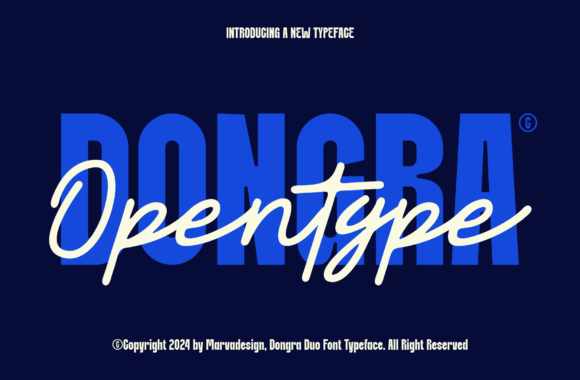
Introducing Dongra Font: A Versatile and Unique Typeface
In the world of typography, a new font has emerged that is set to make a significant impact on the design industry. Meet Dongra, a versatile and unique typeface that comes in two distinct styles: Condensed and Script. Each style brings its own flavor and character, catering to various design needs and preferences. In this article, we will explore the features and benefits of Dongra, and why it is an excellent addition to any designer’s font library.
Dongra Font Styles: Condensed and Script
Dongra offers two font styles that are designed to cater to different design needs. The Condensed style is perfect for projects that require a modern and sleek look, while the Script style is ideal for designs that need a personal and handwritten touch.
Dongra Condensed
The Dongra Condensed font style is a modern and sleek typeface that is designed for high legibility. Its condensed nature makes it perfect for use in display and body text, and its minimalistic design ensures that it can be used in a variety of applications.
- Style: Modern
- Characteristics: Sleek and Clean
- High Legibility: Despite its condensed nature, the font maintains high legibility, making it suitable for both display and body text.
- Minimalistic: The modern style of Dongra Condensed embodies minimalism, with simple lines and a lack of unnecessary embellishments.
- Versatility: This style is ideal for a variety of applications, including headlines, posters, branding, and editorial design, where a contemporary look is desired.
Dongra Script
The Dongra Script font style is a handwritten typeface that offers a dynamic and expressive feel. Its handcrafted nature makes it perfect for creative projects that require a personal touch.
- Style: Handwritten Line
- Characteristics: Handcrafted Feel
- Dynamic and Expressive: The script style offers a dynamic and expressive feel, making it perfect for creative projects that require a personal touch.
- Varied Line Thickness: The varying thickness of the lines in Dongra Script adds to its authenticity, emulating the natural pressure and movement of handwriting.
- Elegance and Flow: The font flows gracefully from one letter to the next, adding an element of elegance and smoothness to any text it is used in.
- Use Cases: Ideal for invitations, greeting cards, logos, and any design work where a personal, handwritten style is desired.
Design Applications for Dongra Font
Dongra’s versatility makes it an excellent choice for a wide range of design applications. Here are some examples of how Dongra can be used:
- Headlines and Posters: Dongra Condensed is perfect for headlines and posters, where a modern and sleek look is desired.
- Branding and Editorial Design: Dongra Condensed is ideal for branding and editorial design, where a contemporary look is desired.
- Invitations and Greeting Cards: Dongra Script is perfect for invitations and greeting cards, where a personal and handwritten touch is desired.
- Logos and Creative Projects: Dongra Script is ideal for logos and creative projects, where a dynamic and expressive feel is desired.
The Benefits of Dongra Typography
Dongra offers several benefits to designers and typographers. Here are some of the advantages of using Dongra:
- Unique and Versatile: Dongra offers a unique and versatile typeface that can be used in a wide range of design applications.
- High Legibility: Dongra Condensed maintains high legibility, making it suitable for both display and body text.
- Handcrafted Feel: Dongra Script offers a handcrafted feel that adds a personal touch to any design.
- Elegance and Flow: Dongra Script flows gracefully from one letter to the next, adding an element of elegance and smoothness to any text.
In conclusion, Dongra is a versatile and unique typeface that offers a perfect balance between modernity and handcrafted charm. Its two styles, Condensed and Script, cater to various design needs and preferences. With its high legibility, minimalistic design, and handcrafted feel, Dongra is an excellent addition to any designer’s font library.